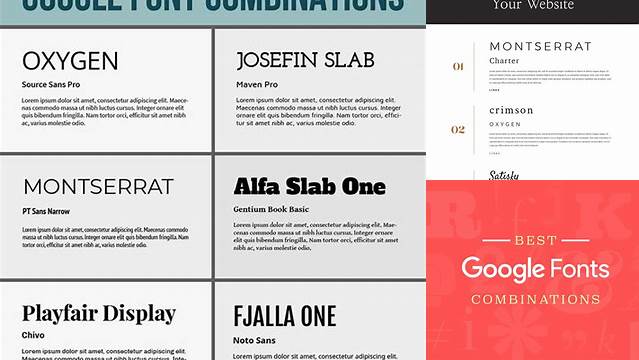
Mastering Google Fonts: Combinations For Stunning Designs
Alright guys, let's dive into the awesome world of Google Fonts! I mean, seriously, who doesn't love a good font? Choosing the right google fonts combination can be a game-changer for your design projects, whether you're a seasoned pro or just starting out. It's like picking the perfect outfit – you want something that looks good, feels right, and makes a statement. This guide is all about helping you find the perfect pairings and use them effectively to create stunning visuals. We'll explore everything from the basics of font pairing to some amazing combination suggestions that will knock your socks off. Get ready to level up your design game!
Choosing the Right Google Fonts Combination: The Fundamentals
So, you're ready to start experimenting with google fonts combination, but where do you even begin? Don't worry, it's not as daunting as it seems! The key is to understand a few fundamental principles. First, consider the purpose of your design. Are you aiming for a formal, professional look, or something more playful and creative? The mood you want to convey will heavily influence your font choices. Next, think about readability. No matter how beautiful a font is, if it's difficult to read, it's a no-go. Especially for body text, you want a font that's clear and easy on the eyes. Then, there's contrast. This is where things get interesting! Contrasting fonts can create visual interest and hierarchy. Think about pairing a strong serif font with a clean sans-serif. However, be careful not to overdo it. Too much contrast can be jarring. Finally, don't forget consistency. Once you've chosen your fonts, stick with them throughout your design. This helps create a cohesive and professional look. Oh, and one more thing: know your audience! What fonts resonate with them? Understanding your target audience can help you make the best choices for your design. Trust me, with these basics, you'll be well on your way to creating stunning font combinations. Seriously, it's like building a foundation before starting your dream house!
Understanding Font Categories and Their Impact
To master google fonts combination, you need to get to know the different font categories. Each category has its own distinct characteristics and is best suited for specific purposes. Let's break them down, shall we? Serif fonts are the classic choice, with small strokes (serifs) at the end of the letters. They often evoke a sense of tradition, elegance, and authority. Think of them as the sophisticated older sibling in the font family. These are often used for headings, body text, and long-form content. Then, there are Sans-serif fonts, which, as the name suggests, lack those little strokes. They are clean, modern, and easy to read, making them ideal for digital interfaces, headlines, and shorter text blocks. They're the cool, minimalist friend. Display fonts are all about making a statement. They're bold, creative, and designed to grab attention. Think of them as the life of the party! These fonts are best used sparingly, for headlines, logos, or short bursts of text. Handwriting fonts mimic the look of handwriting, adding a personal touch. They're great for invitations, quotes, or adding a touch of personality. Finally, there are Monospace fonts, where each character takes up the same amount of horizontal space. These are commonly used for code, technical documents, or to give a retro feel. By understanding these categories, you'll be able to make informed decisions when selecting your google fonts combination. Get creative with these font categories and create a masterpiece!
The Role of Hierarchy in Font Pairing
Hierarchy, in design, is all about guiding the viewer's eye and organizing information in a clear and logical way. And when it comes to google fonts combination, hierarchy plays a crucial role. It helps establish the importance of different elements on your page. Think of it like a well-written essay. The title is the most important element, followed by headings, subheadings, and then the body text. Similarly, in your design, you need to use fonts to create this visual order. Size is your primary tool. Larger fonts are used for headings, smaller fonts for body text. This immediately establishes a sense of importance. Weight also comes into play. Use bold or heavier fonts for headings and lighter weights for body text. This helps create contrast and visual interest. Color can be used to highlight important elements. Use a different color for headings or calls to action to make them stand out. Spacing is key. Use more space around headings to separate them from the body text. This creates visual breathing room and improves readability. By skillfully applying these principles, you can create a google fonts combination that not only looks good but also communicates your message effectively. It's about guiding your viewers through your content effortlessly, making it easy for them to understand and engage with your design. This is like the navigation system of a website or publication, providing a clear structure.
Pairing Google Fonts: Best Practices and Tips
Alright, let's get down to the nitty-gritty of pairing fonts! There's no magic formula, but there are some best practices that can guide you. One of the key things is to start with a heading font. This will be the star of the show, so choose something that reflects your brand and overall design aesthetic. Then, choose a body font that complements your heading font and is highly readable. Consider the contrast between your fonts. You want enough contrast to create visual interest, but not so much that it's jarring. Use tools like Google Fonts' pairing tool to experiment with different combinations and see how they look together. Pay attention to the personality of your fonts. Do they clash or complement each other? Are they modern, classic, or something in between? Consider the context of your design. Is it for a website, a print brochure, or a social media post? Different contexts may require different font choices. And don't be afraid to experiment. The best way to learn is to try out different combinations and see what works best for you. The goal is to create a google fonts combination that looks balanced, professional, and visually appealing. This is the area where the most experimentation will happen. Have fun!
Leveraging Google Fonts' Pairing Tool for Inspiration
Google Fonts offers a fantastic tool to help you find the perfect google fonts combination. This tool is a game-changer for anyone looking to explore different pairings quickly and easily. To use the tool, go to the Google Fonts website and browse the available fonts. When you find a font you like, click on it and then scroll down to the section on